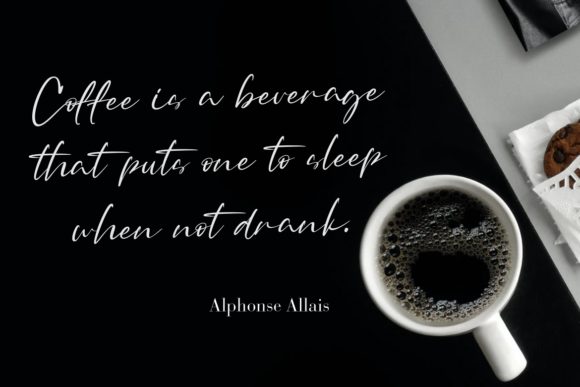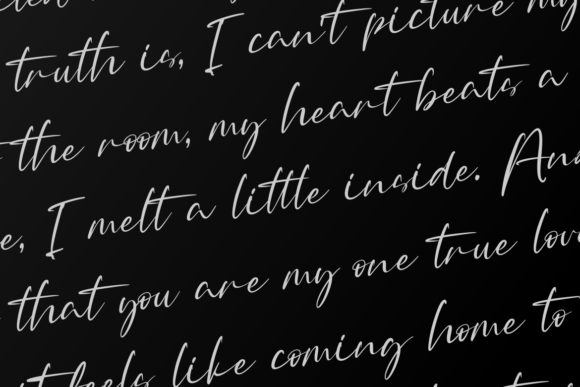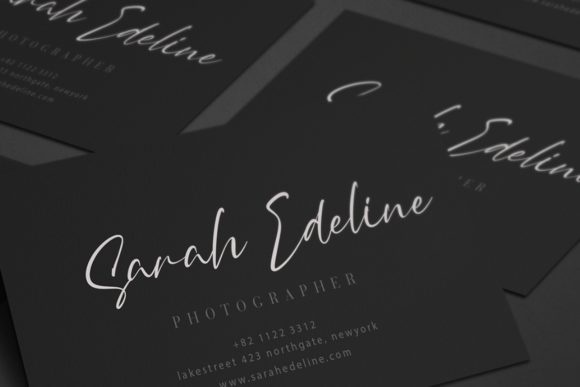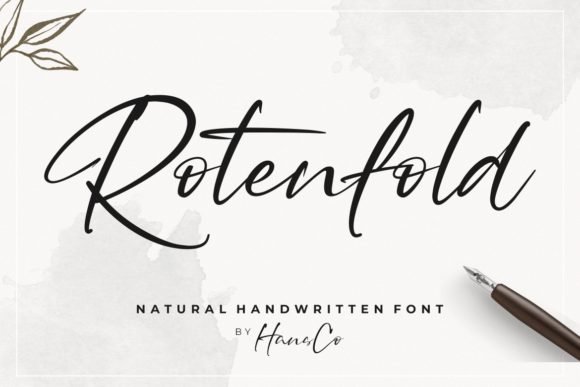
Introduction to Rotenfold Font
Rotenfold is a stylish and refined handwritten font.
It looks beautiful on a variety of designs requiring a personalized style, such as wedding invitations, thank you cards, weddings, greeting cards, logos and so much more .
Key Features of Rotenfold Font